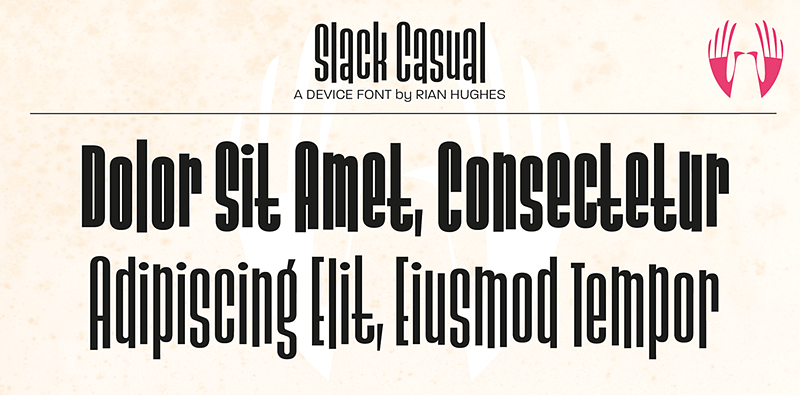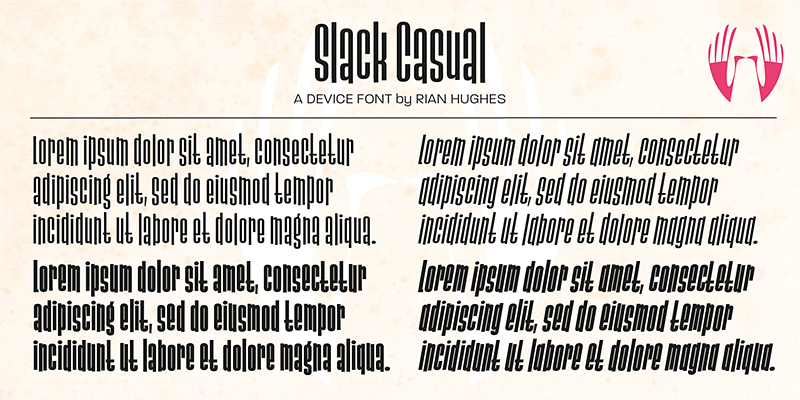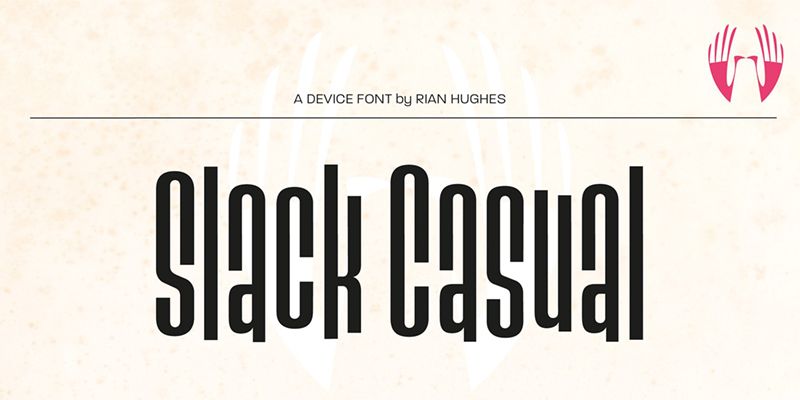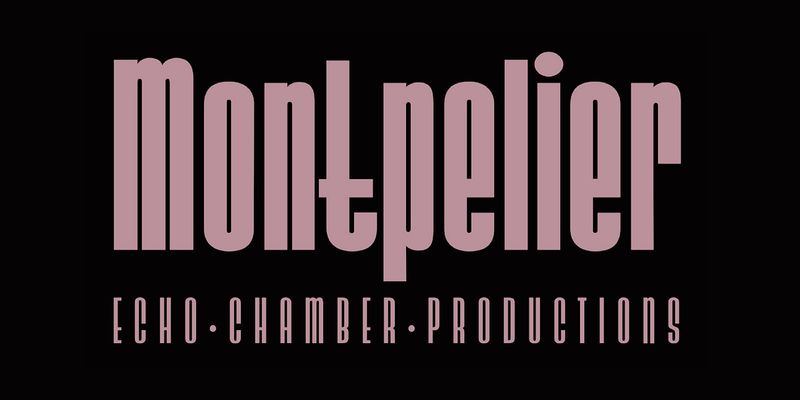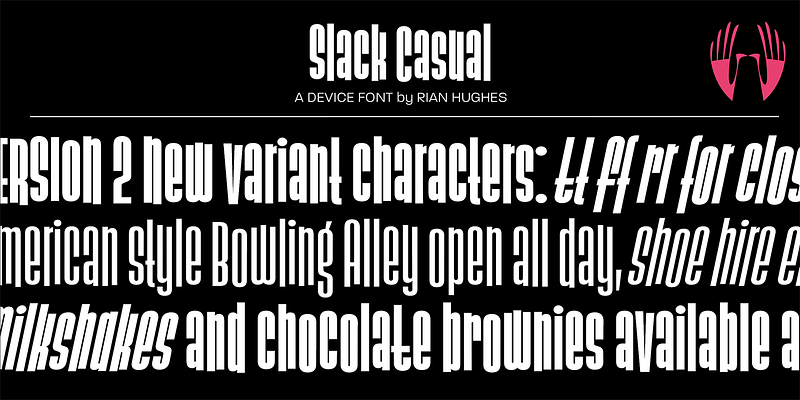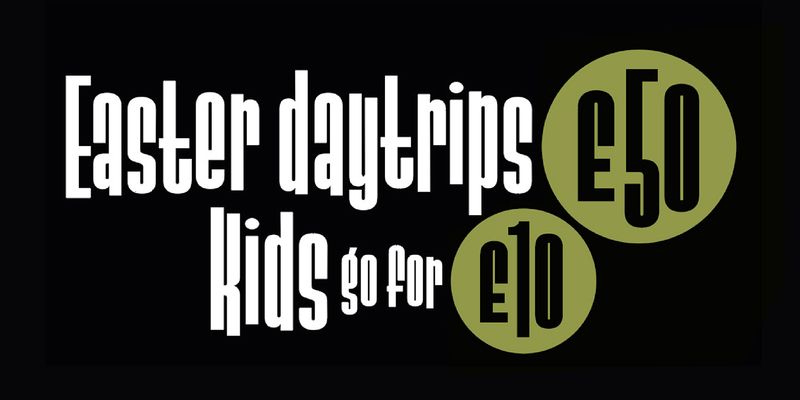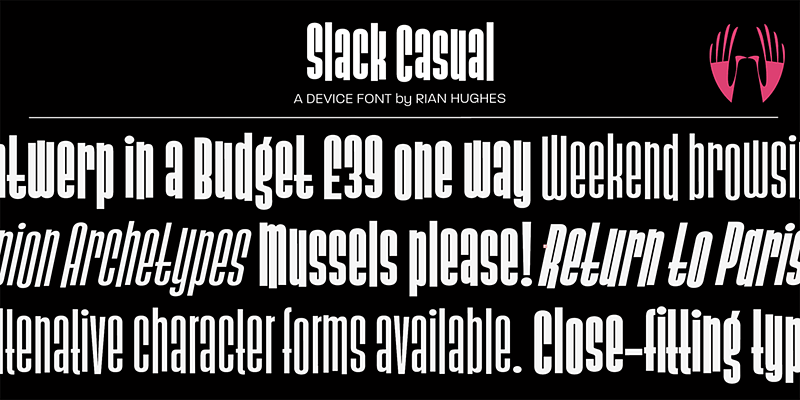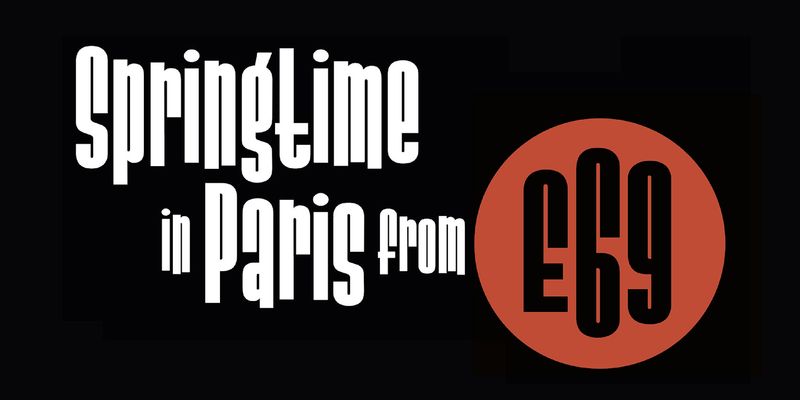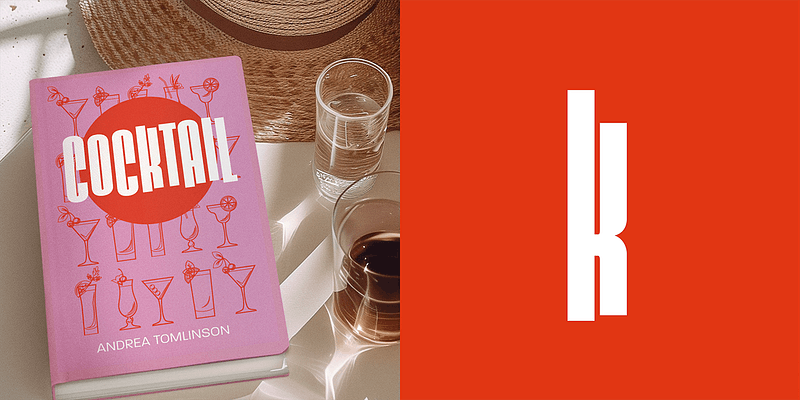
A narrow condensed family in four weights with a sense of stylish fun. Playful yet stylish. Alternate versions of the “f”, “t” and more are available through OpenType.
Type, design and imagery by English illustrator and typographer Rian Hughes.